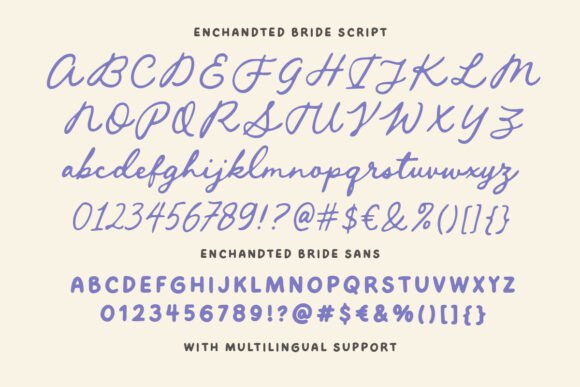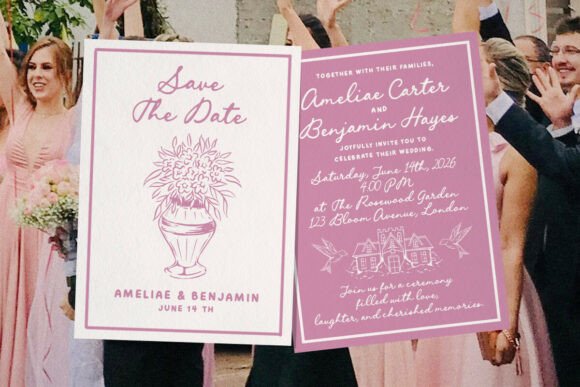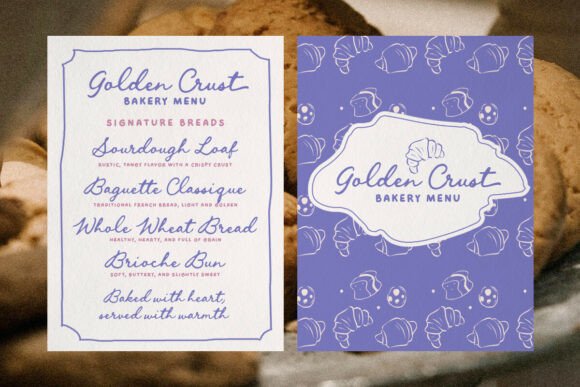
Introduction to Enchanted Bride Font
Enchanted Bride is a charming handmade font duo that blends a smooth bold sans with an elegant handwritten script.
Its graceful curves and soft strokes create a romantic, timeless feelโperfect for invitations, branding, stationery, and any project that celebrates love and beauty The duo pairing offers balance between sophistication and warmth, giving every design a touch of elegance and enchantment that feels both modern and heartfelt.